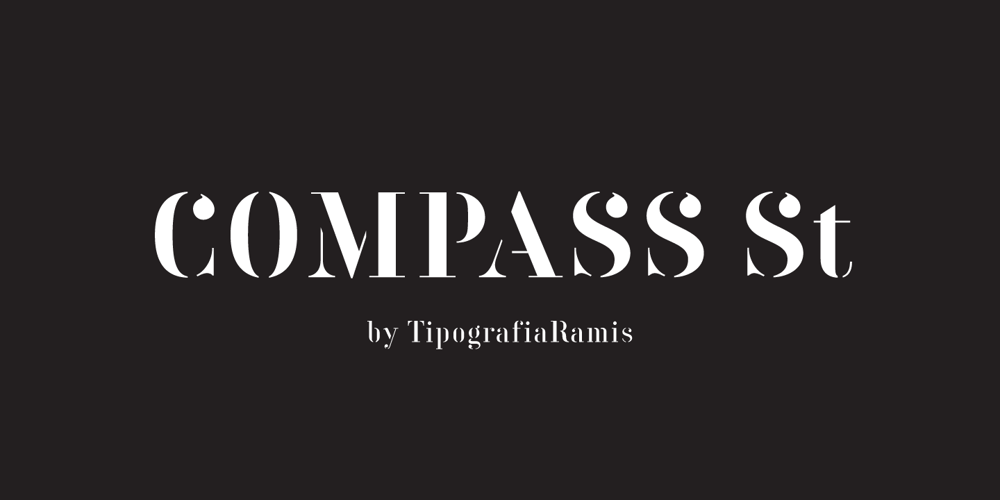
Compass St Font Family was designed by Ramiz Guseynov and published by TipografiaRamis. Compass St contains 2 styles and family package options. Compass St – a new addition to the existing Compass TRF Stencil fonts, originally released in 2010. Package consists of two fonts with rather different, both decorative, styles. Typeface is released in OpenType format with extended support for most Latin languages.